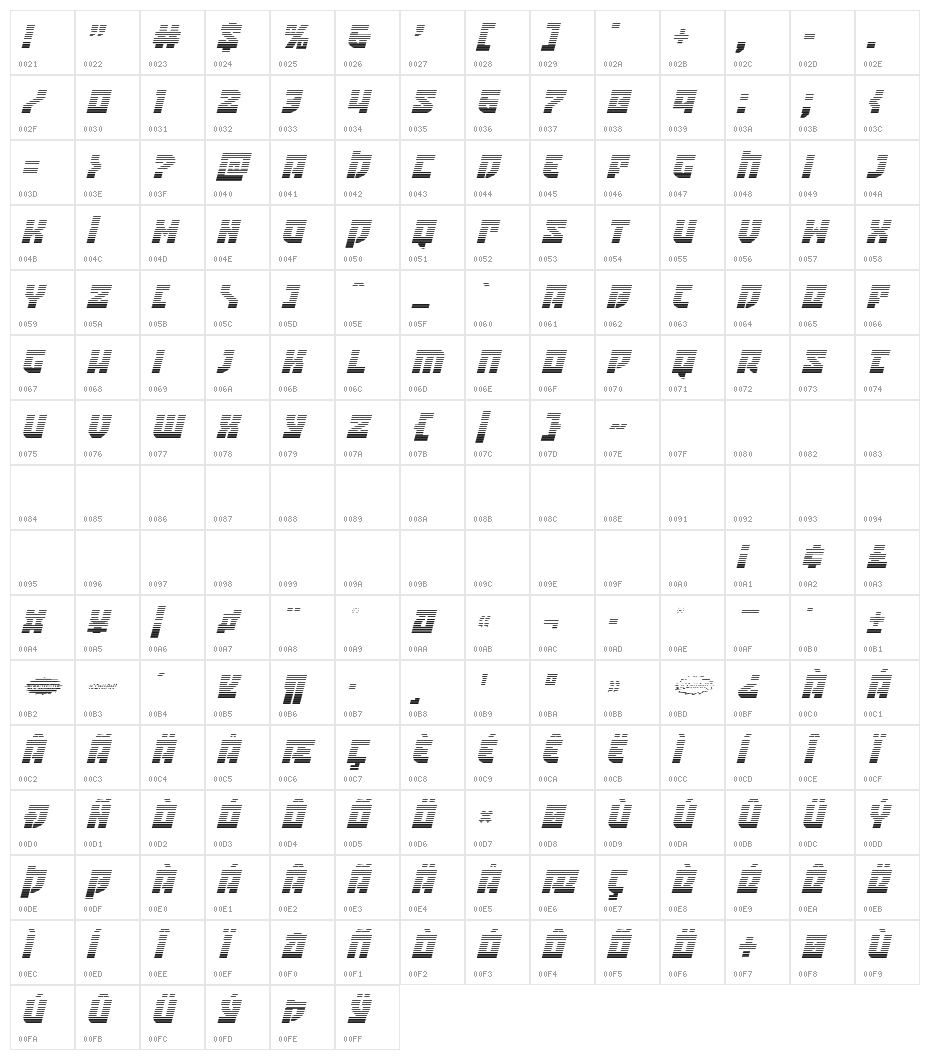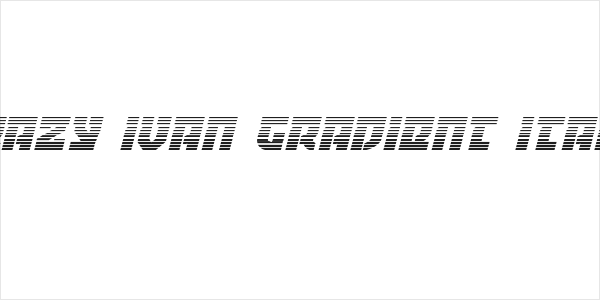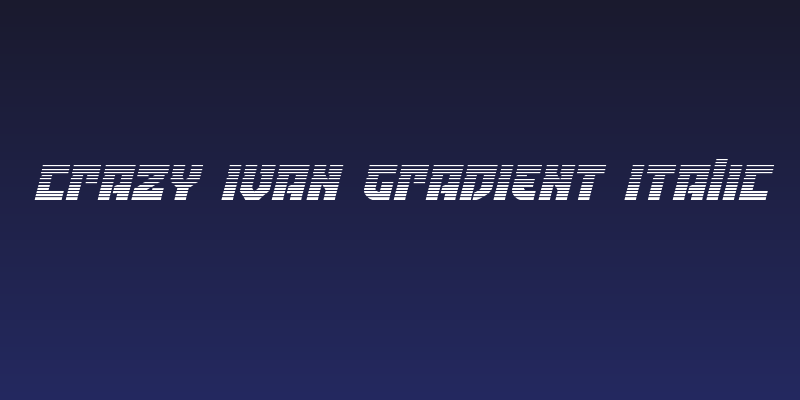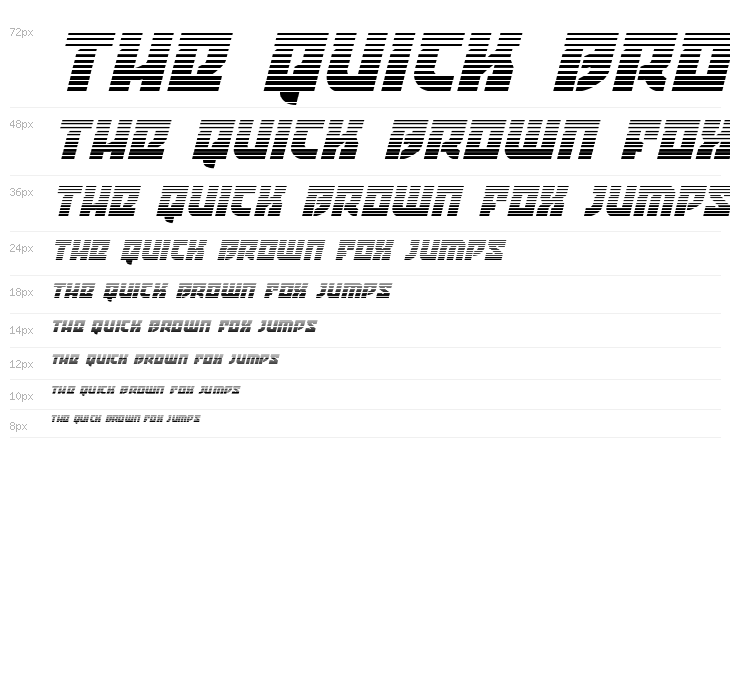
Crazy Ivan Gradient Italic Font
Crazy Ivan Gradient Italic Description
This font features a bold, italicized style with a unique gradient effect created by horizontal lines that form each character. The design is highly geometric, with sharp angles and a futuristic aesthetic. The uppercase and lowercase letters maintain a consistent style, while the numbers and special characters seamlessly integrate into the overall design. This font's distinct appearance makes it stand out, with each character appearing as if it's in motion, adding a dynamic feel to any text.
| Proposed Projects | Ideal for sci-fi themed projects, modern branding, dynamic posters, and digital artwork. |